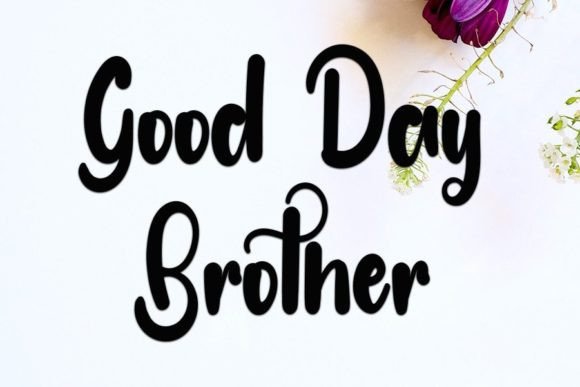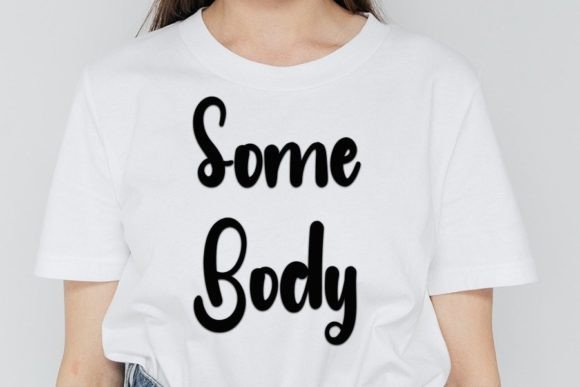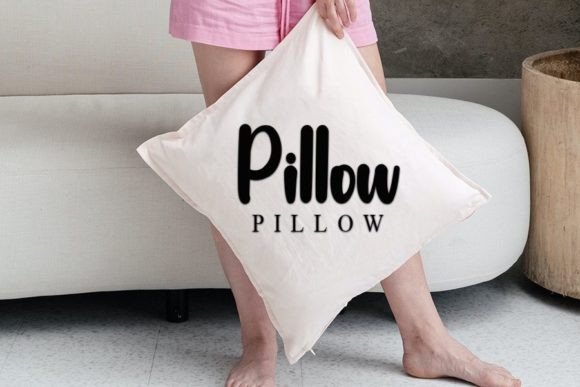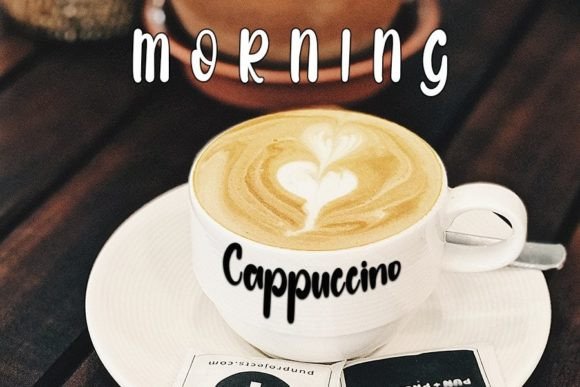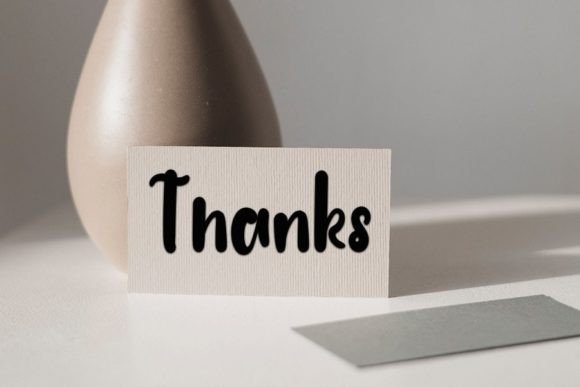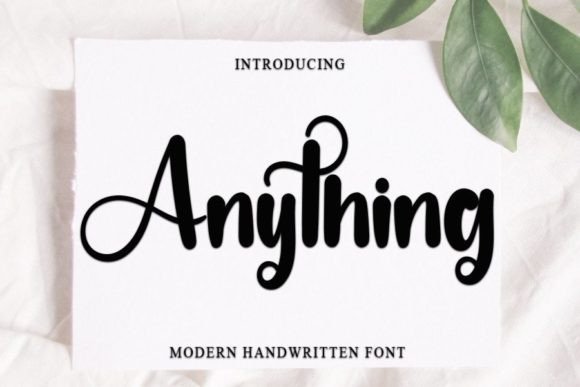
Discover the Elegance of Anything Font: Elevate Your Designs with a Timeless Handwritten Style
Are you on the hunt for a font that adds a touch of elegance and sophistication to your designs? Look no further than Anything Font, a beautiful handwritten font that is sure to capture your heart. With its incredibly distinct and timeless style, Anything Font is the perfect choice for designers and crafters looking to create spectacular designs that stand out from the crowd.
What Makes Anything Font So Special?
Anything Font is a neat and beautiful handwritten font that boasts an elegant touch, making it ideal for a wide range of projects. Whether you’re working on a branding campaign, creating social media graphics, or designing a website, this font is sure to bring a level of sophistication and refinement to your work. Its unique and timeless style ensures that your designs will remain relevant and stylish for years to come.
Key Features of Anything Font
- Elegant and Refined: Anything Font features an elegant and refined handwritten style that adds a touch of sophistication to any design.
- Distinct and Timeless: Its incredibly distinct and timeless style ensures that your designs will stand out from the crowd and remain stylish for years to come.
- Versatile: This font is perfect for a wide range of projects, including branding, social media graphics, websites, and more.
- Easy to Read: Despite its elegant and refined style, Anything Font is easy to read, making it perfect for body text and headings.
How to Use Anything Font in Your Designs
- Pair it with Other Fonts: Anything Font pairs well with other fonts, including sans-serif and serif fonts. Experiment with different combinations to find the perfect look for your design.
- Use it for Headings and Titles: This font is perfect for headings and titles, where its elegant and refined style can really shine.
- Add a Personal Touch: Anything Font is a great way to add a personal touch to your designs. Use it to create a sense of warmth and approachability.
Why Designers and Crafters Love Anything Font
- Unique Style: This font features a unique and timeless style that sets it apart from other fonts.
- Elegant and Refined: Its elegant and refined style makes it perfect for designs that require a level of sophistication.
- Easy to Use: Anything Font is easy to use and pairs well with other fonts, making it a great choice for designers of all skill levels.
In conclusion, Anything Font is a beautiful handwritten font that is sure to elevate your designs to the next level. With its elegant and refined style, incredibly distinct and timeless look, and versatility, this font is perfect for designers and crafters looking to create spectacular designs. Whether you’re working on a branding campaign, creating social media graphics, or designing a website, Anything Font is a great choice. So why wait? Fall in love with Anything Font and start creating stunning designs today!